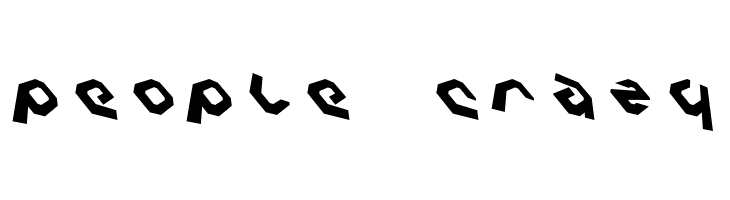
Young Techs Condensed Italic Font
( Fonts by Jeri Ingalls - littlehouse.homestead.com )
A bold, modern font with geometric shapes and consistent stroke width.